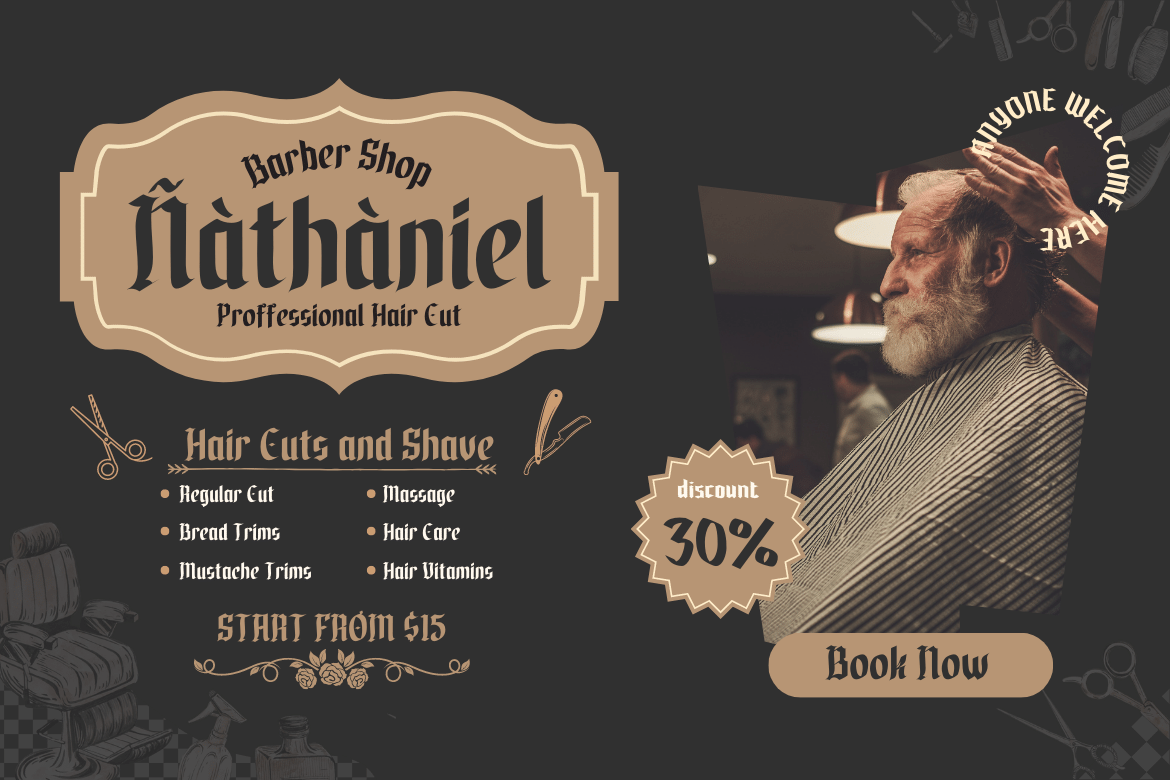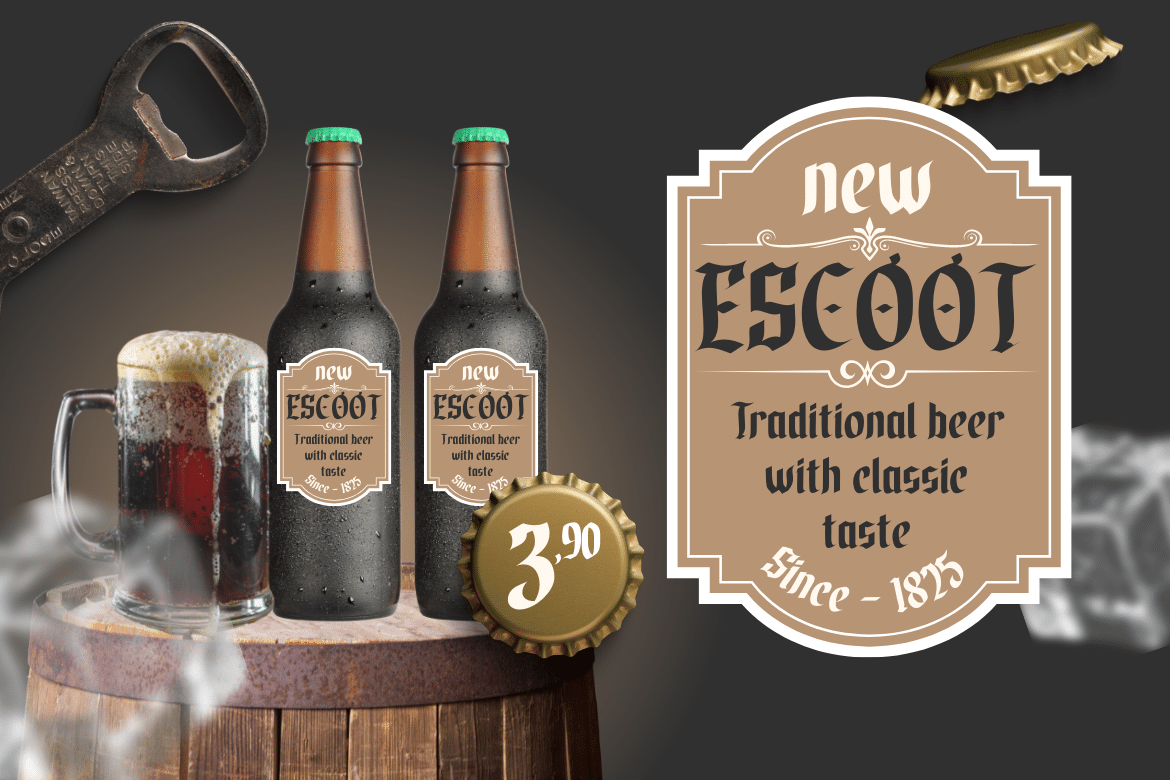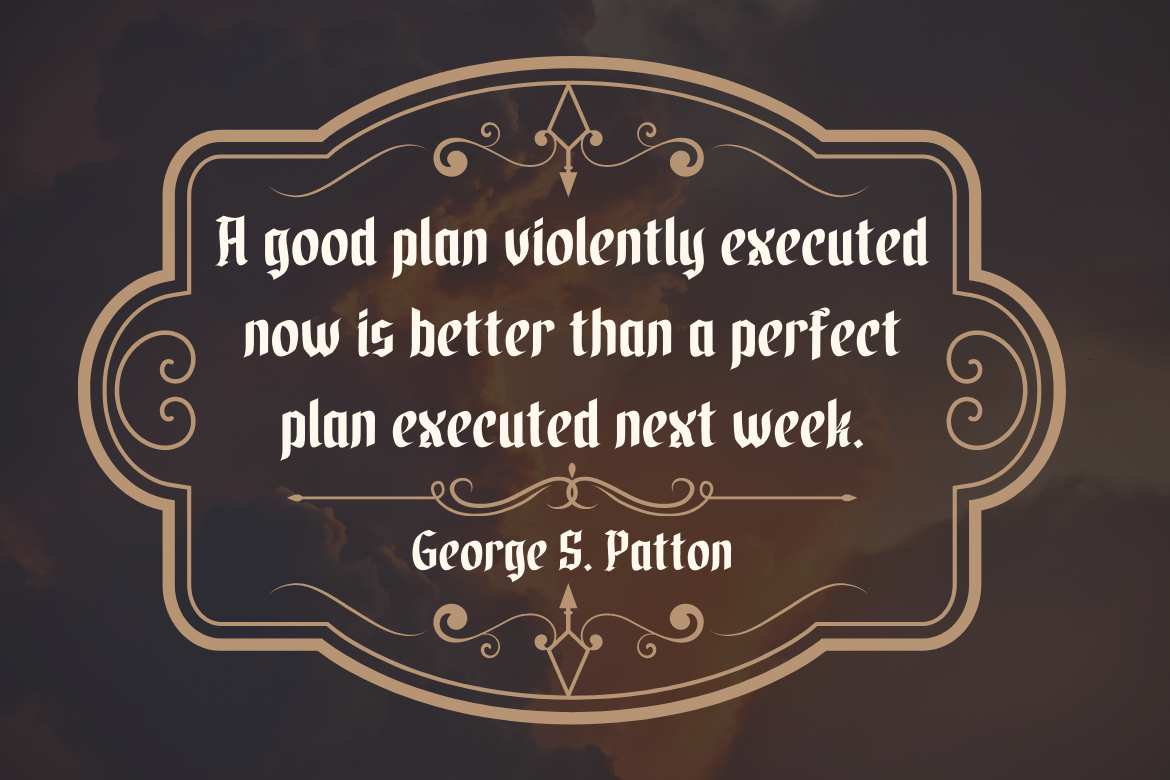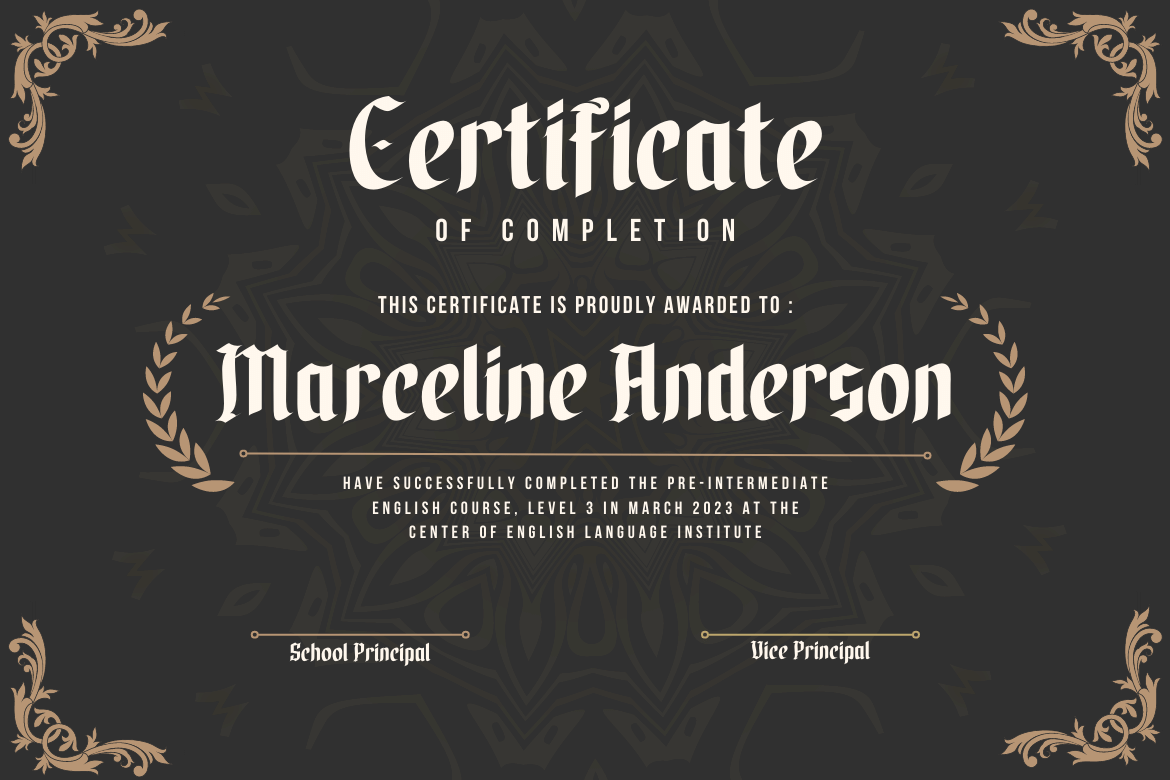
Waxen Font
Waxen Display Font
Introducing our newest gothic font called WAXEN, presenting a vintage and elegant style. With a classic Roman typeface, this font evokes confident elegance with striking details on each side of the lettering. This font can be used in a variety of projects to create a vintage and elegant style. Use it to enhance visual projects, titles, or banners, packaging with a bold classic look that exudes style, elegance, and strong personality.